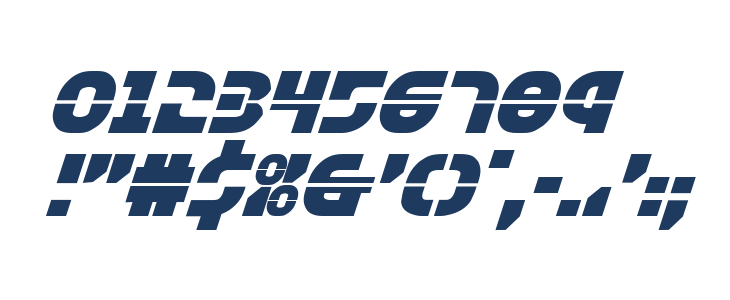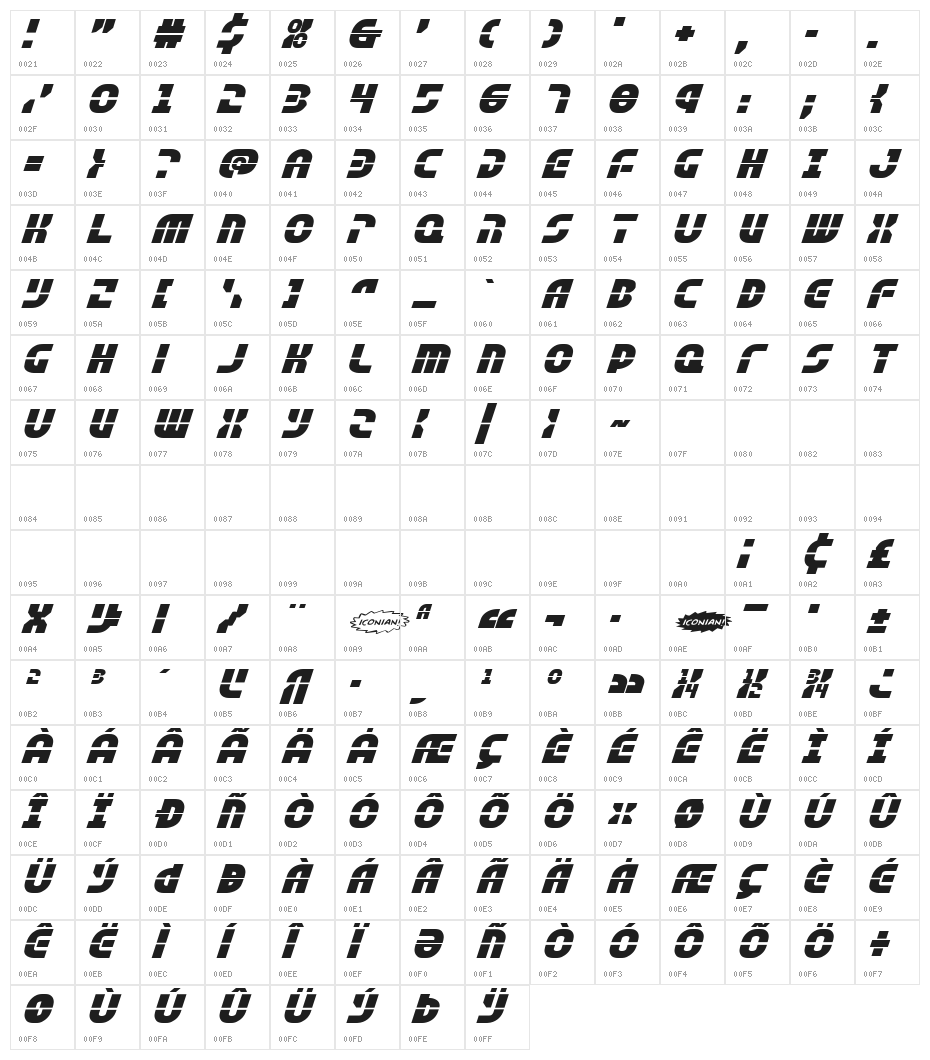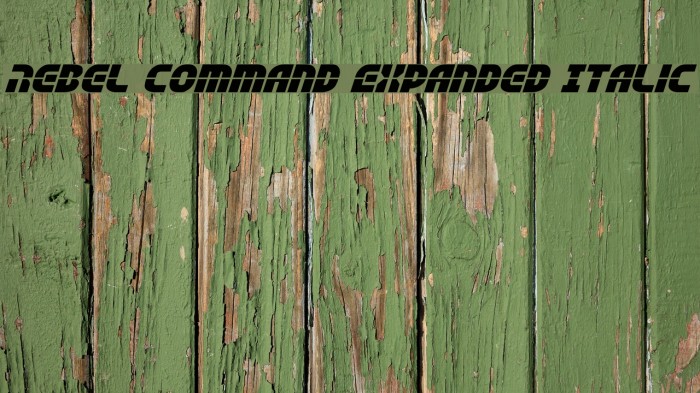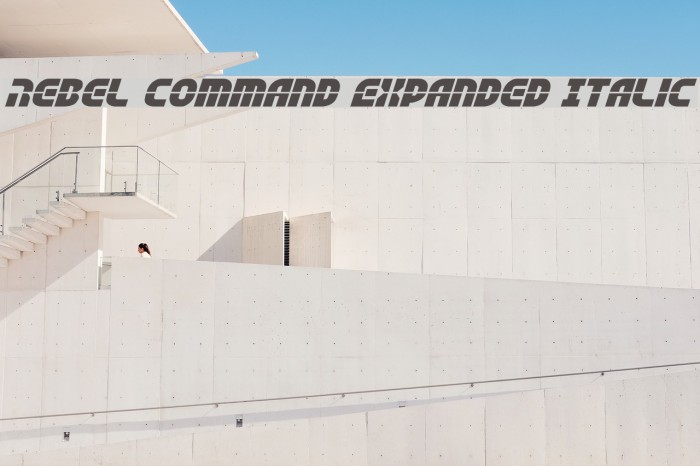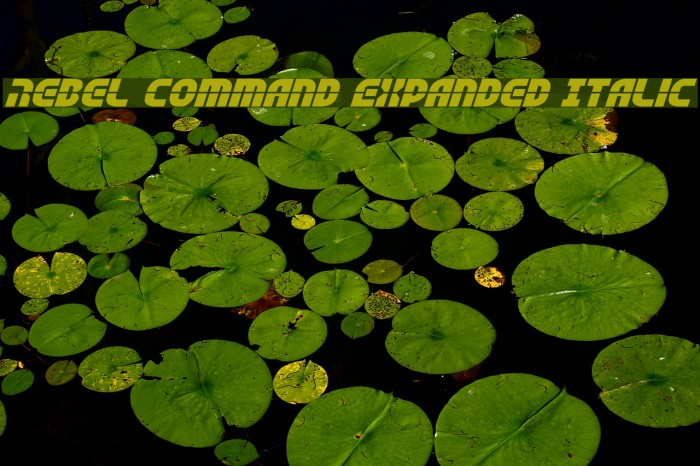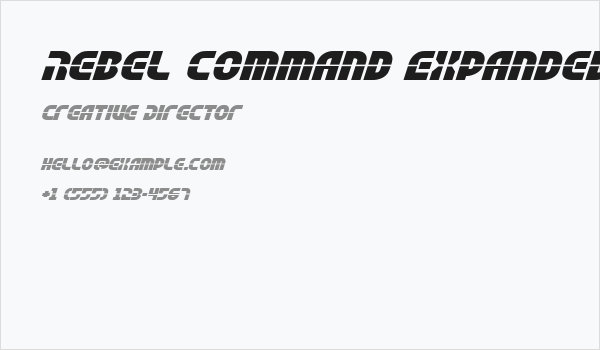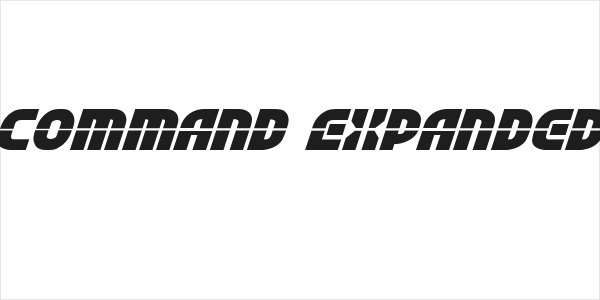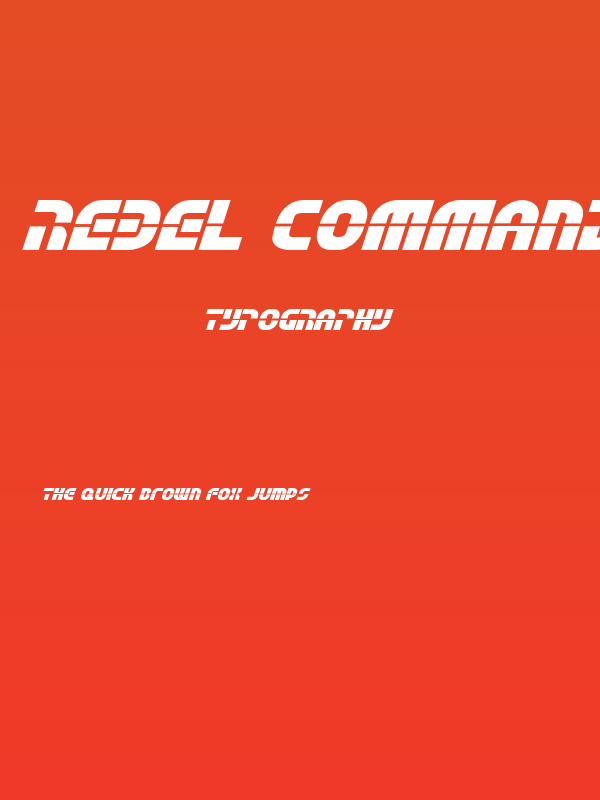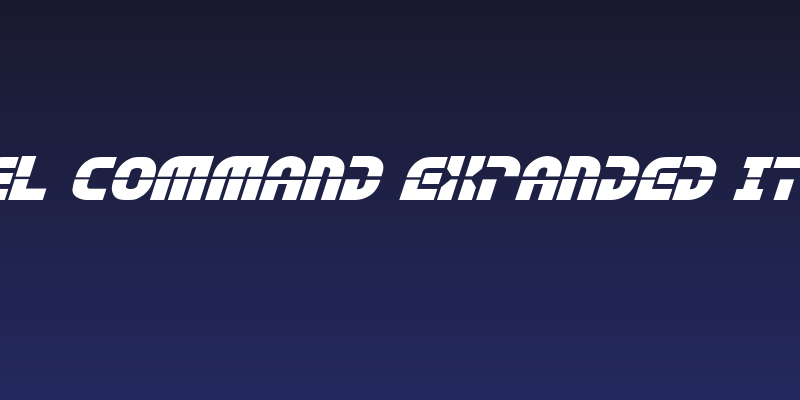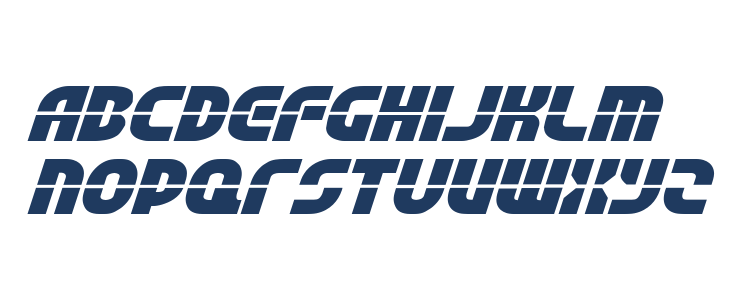
Rebel Command Expanded Italic Font
Rebel Command Expanded Italic Description
This font features a bold, futuristic design with a distinct italic slant, giving it a dynamic and forward-moving appearance. The characters are expanded, providing a sense of strength and presence. Each letter is crafted with sharp angles and geometric shapes, creating a modern and tech-inspired aesthetic. The font's bold weight and expanded width make it highly visible and impactful, suitable for attention-grabbing headlines and designs. The character spacing is tight, enhancing the cohesive and compact look of the text. The high contrast in stroke thickness adds to the boldness and clarity of each character, ensuring readability even at larger sizes.